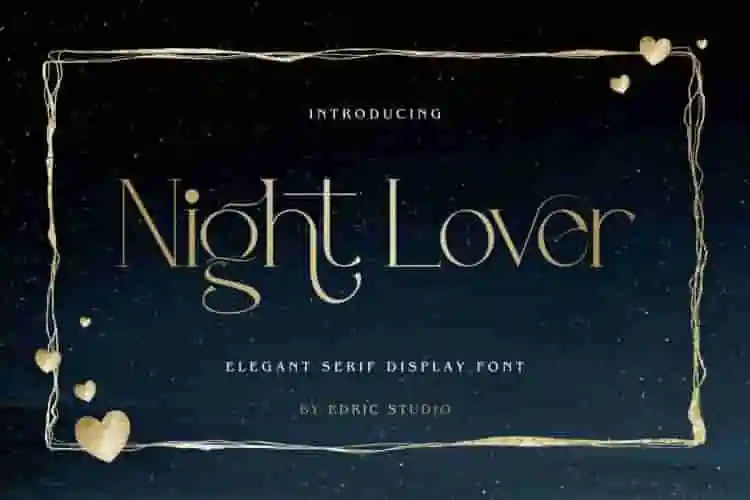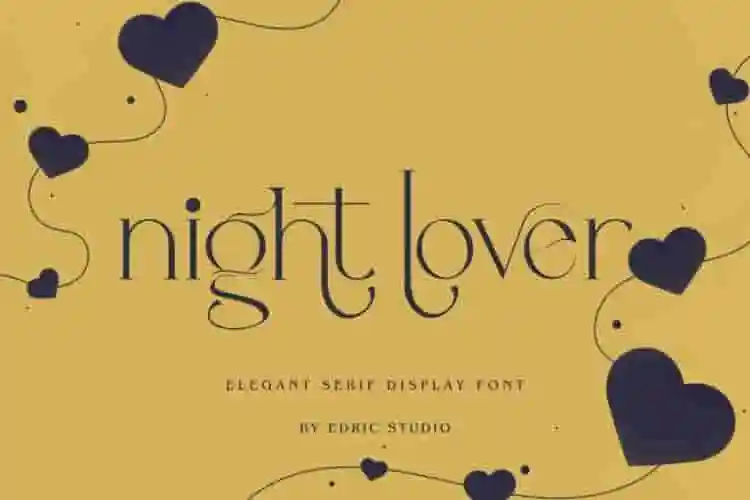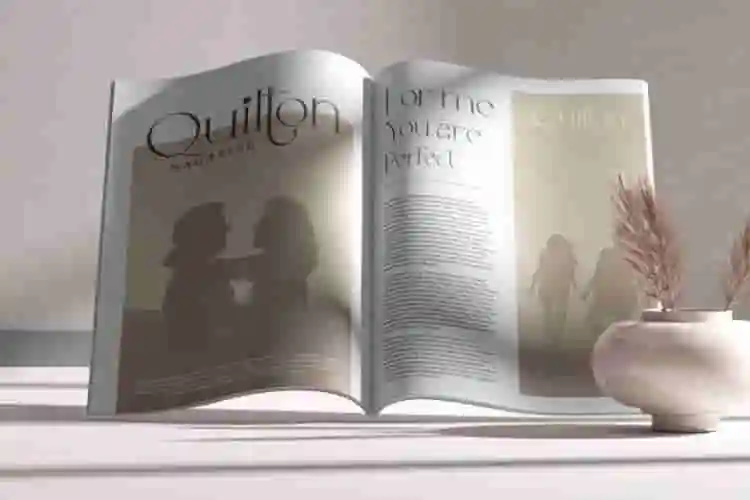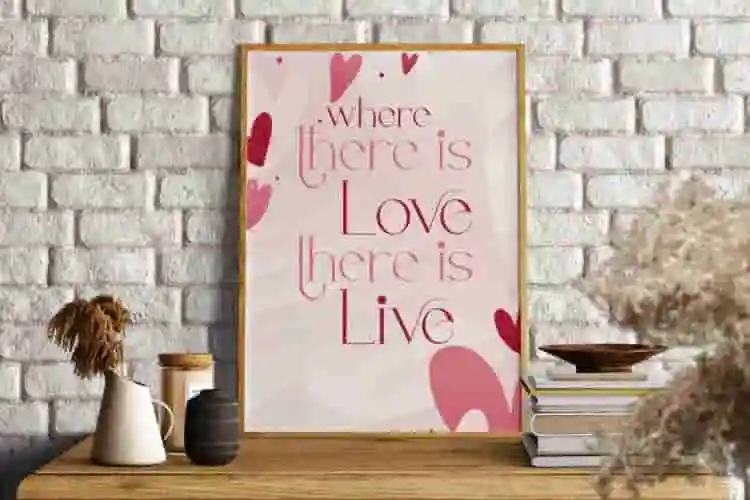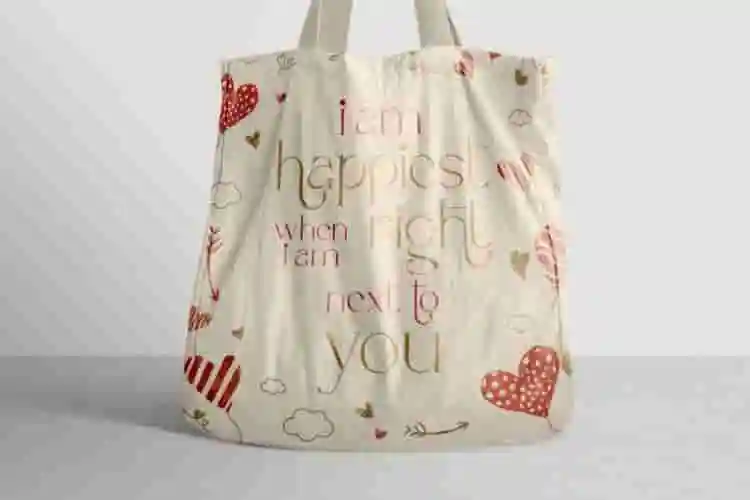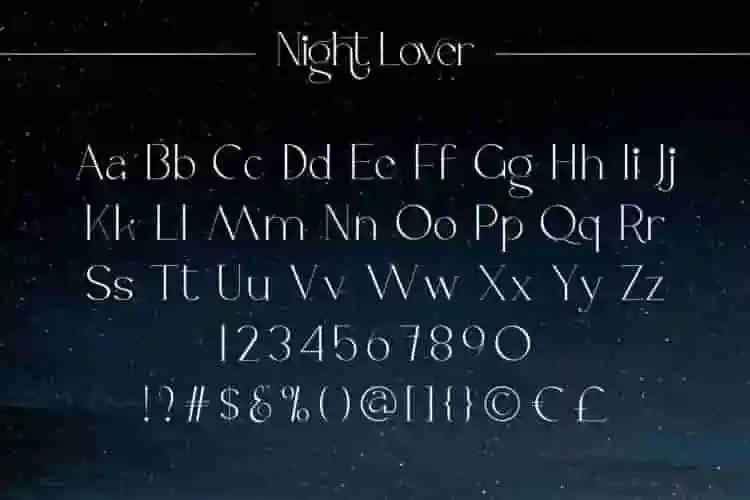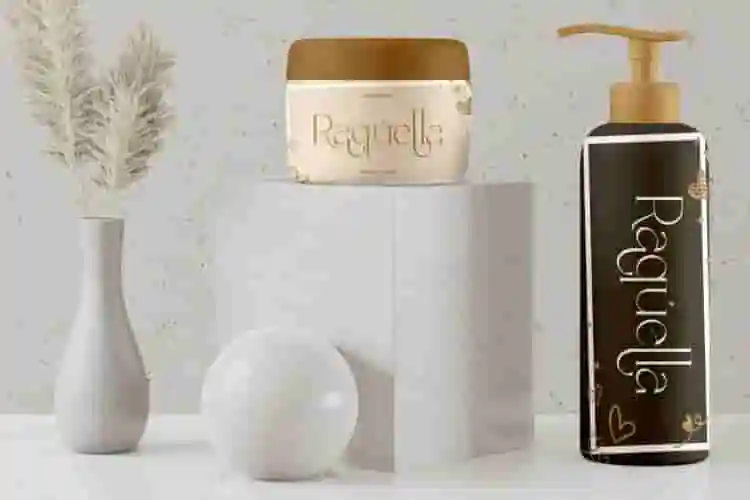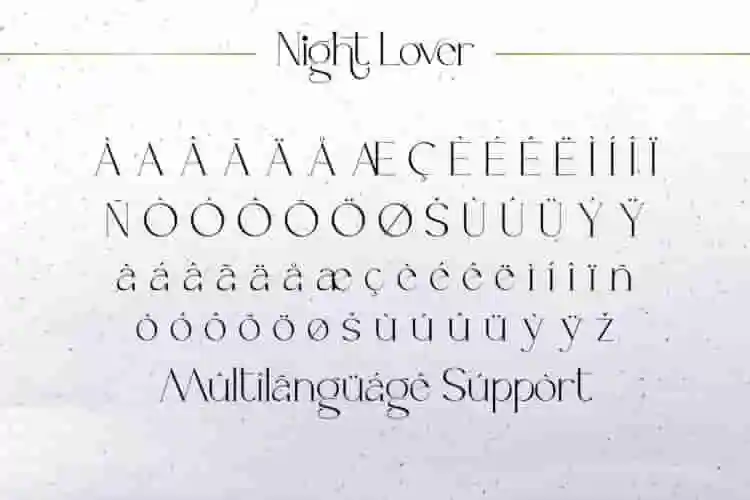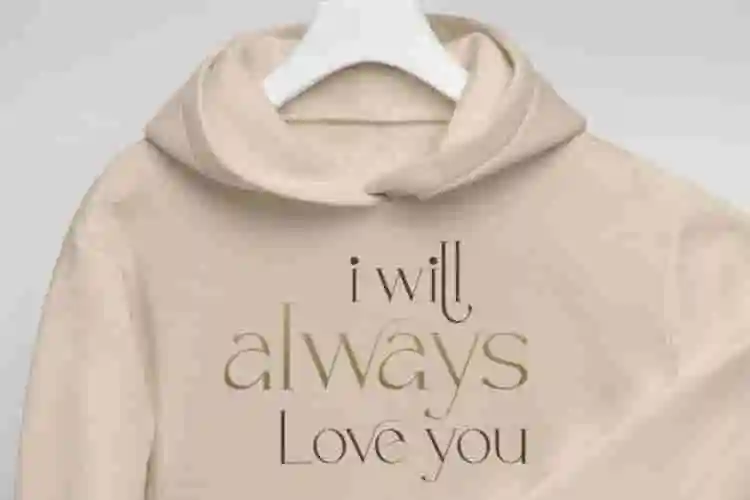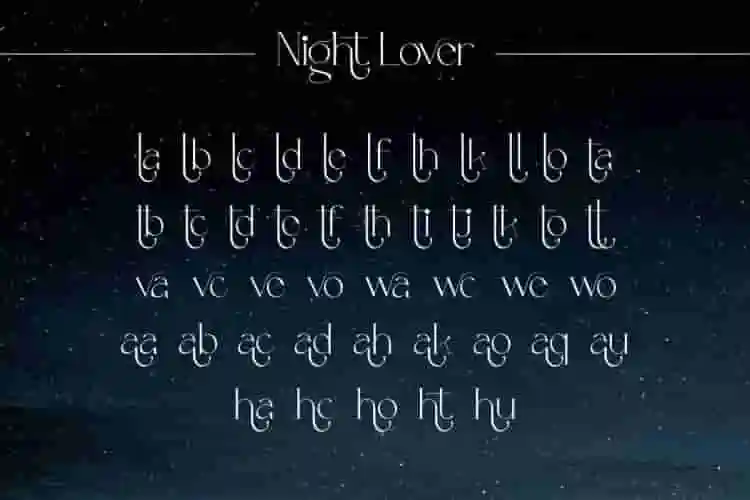
Night Lover Display Font
Night Lover Font is an elegant serif display font, inspired from classy women’s magazine. It is perfect for the purposes of designing magazines, beauty care brand, book and cover title, boutique, DIY projects, frame art, packaging design, letter printing on clothes, logos, special events and any more.
Night Lover Font is a sophisticated modern typography ideal for the luxury logo and branding, advertising and promotion, art quote, blog, fashion, gold and jewelry business, home decoration, invitations, title, valentine day, wedding materials.
Step into the night with Night Lover, a bold display font designed for striking visuals, mysterious vibes, and unforgettable branding. With its sleek curves, sharp edges, and shadowy elegance, this typeface is made for those who design with attitude.
Introducing Night Lover, a modern high-contrast display font designed to capture the mood of midnight streets, glowing lights, and whispered secrets. This font brings a seductive edge to your design — bold yet graceful.
With its dramatic curves and sleek forms, Night Lover is perfect for fashion branding, editorial layouts, music covers, film posters, luxury packaging, and any project that craves a touch of dark romance.
• Stylish Display Typeface
• Great for Visual Impact